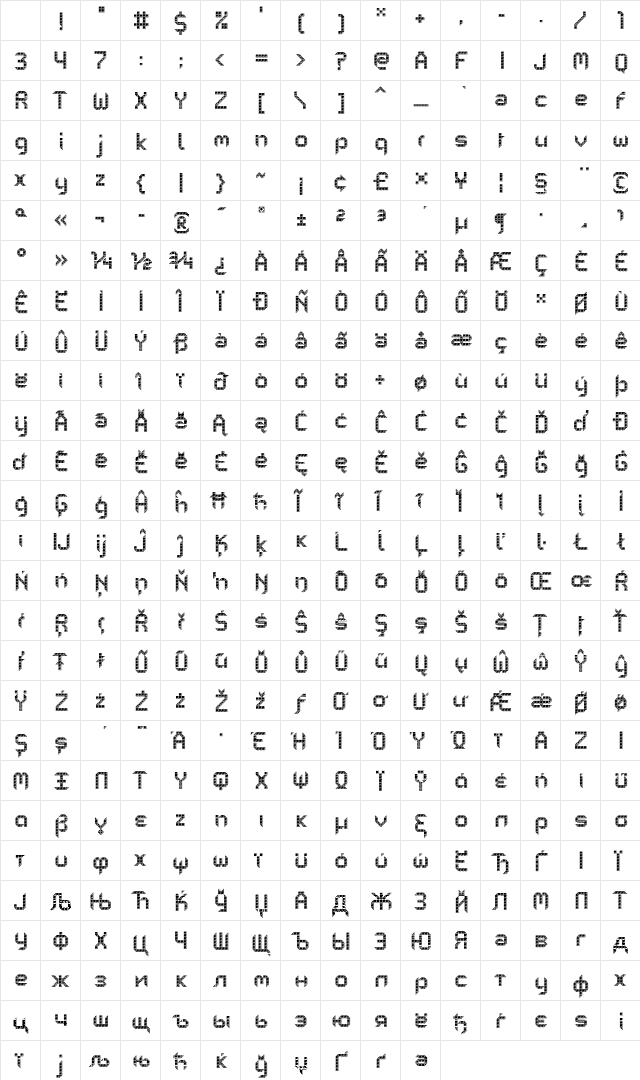
Complete PF Mechanica B Pro Emboss glyph index. Displaying only characters natively supported by PF Mechanica B Pro Emboss font.
PF Mechanica B Pro is a composed and adaptable typeface that performs quietly and consistently across a wide range of design contexts.